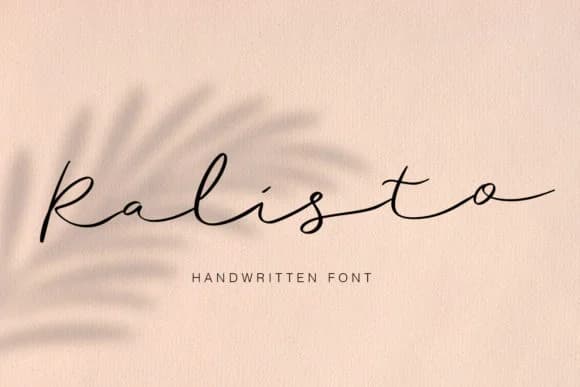
1 / 3About Ralisto Font
Ralisto is a delicate, flowing script with genuine character that reads like someone's own handwriting rather than a digital simulation. Designed by Sigit Dwipa, this handwritten font captures the looseness of pen on paper while maintaining clean, readable letterforms that work at any size.
The light weight makes it perfect for wedding invitation suites and hand-lettered thank you cards, where personality matters more than formality. It performs beautifully on Etsy product labels for handmade goods, bringing warmth to artisanal packaging that stands out on shelves. Boutique beauty brands, craft subscription boxes, and custom greeting card collections all benefit from that authentic stroke variation, which feels intentional rather than haphazard. The letterforms sit somewhere between casual and refined, making it work equally well for intimate stationery design and informal branding applications.
What sets Ralisto apart is restraint. It doesn't shout or demand attention, but it doesn't whisper either. The designer resisted unnecessary flourishes, letting natural pen movement do the talking. This makes it reliable for body copy and headlines alike, a flexibility that saves time when designing complete suites. Ralisto suits creatives building personality-driven brands or one-off projects where sincerity beats polish. Hand letterers, small business owners, and packaging designers will find real value in its balance. You can download it on Creative Fabrica.
Ralisto Font is a script font that shines as a display or heading face. Pair it with a clean sans-serif or serif font for body text β the contrast creates a clear hierarchy while the two styles stay balanced and easy to read.
Ralisto Font
by Sigit Dwipa